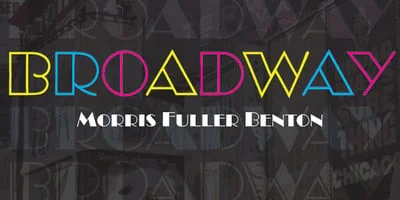
Broadway Font
This theatrical typeface excels in musical theater branding, Broadway show posters, entertainment venue signage, cabaret club materials, vintage theater programs, performing arts centers, show business communications, and dramatic presentations. Its show-stopping character makes it perfect for projects requiring theatrical grandeur and entertainment industry authenticity.
Broadway Font generates excitement through its show-stopping magnificence that captures the dazzling energy of Broadway lights and theatrical performances. The font's bold strokes and stage-worthy letterforms create an atmosphere of dramatic entertainment that resonates with audiences seeking spectacular experiences and theatrical authenticity. Its dramatically crafted character variations deliver marquee-perfect readability while maintaining distinctive theatrical personality that reflects the glamour of show business and the transformative power of live entertainment and musical theater magic.
The Broadway Font family includes multiple show business variations such as regular, condensed, outline, shadow, and marquee styles. Each family member maintains the distinctive theatrical aesthetic while offering different levels of dramatic sophistication for various entertainment applications. This spectacular collection allows designers to create show-stopping compositions that celebrate the full spectrum of Broadway experiences from intimate cabaret performances to grand musical productions.
The Broadway Font offers designers access to premium theatrical typography that brings authentic show business glamour to any project. Its dramatic character and entertainment appeal make it ideal for creating memorable theater brands and engaging performance communications that captivate audiences. Whether developing entertainment venue identities, designing show materials, or crafting theatrical marketing campaigns, this font provides the Broadway authenticity and dramatic flair essential for connecting with audiences who love live entertainment, appreciate theatrical artistry, and embrace the magical world of Broadway shows and musical theater performances.